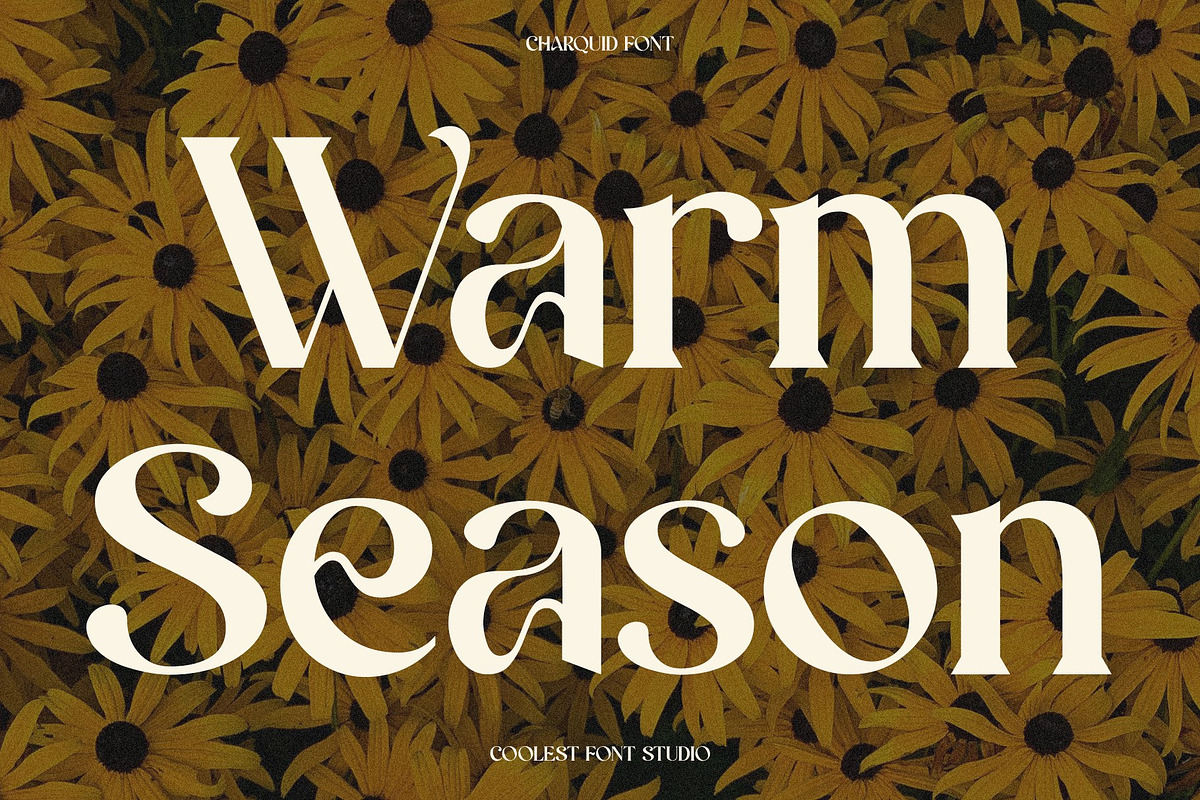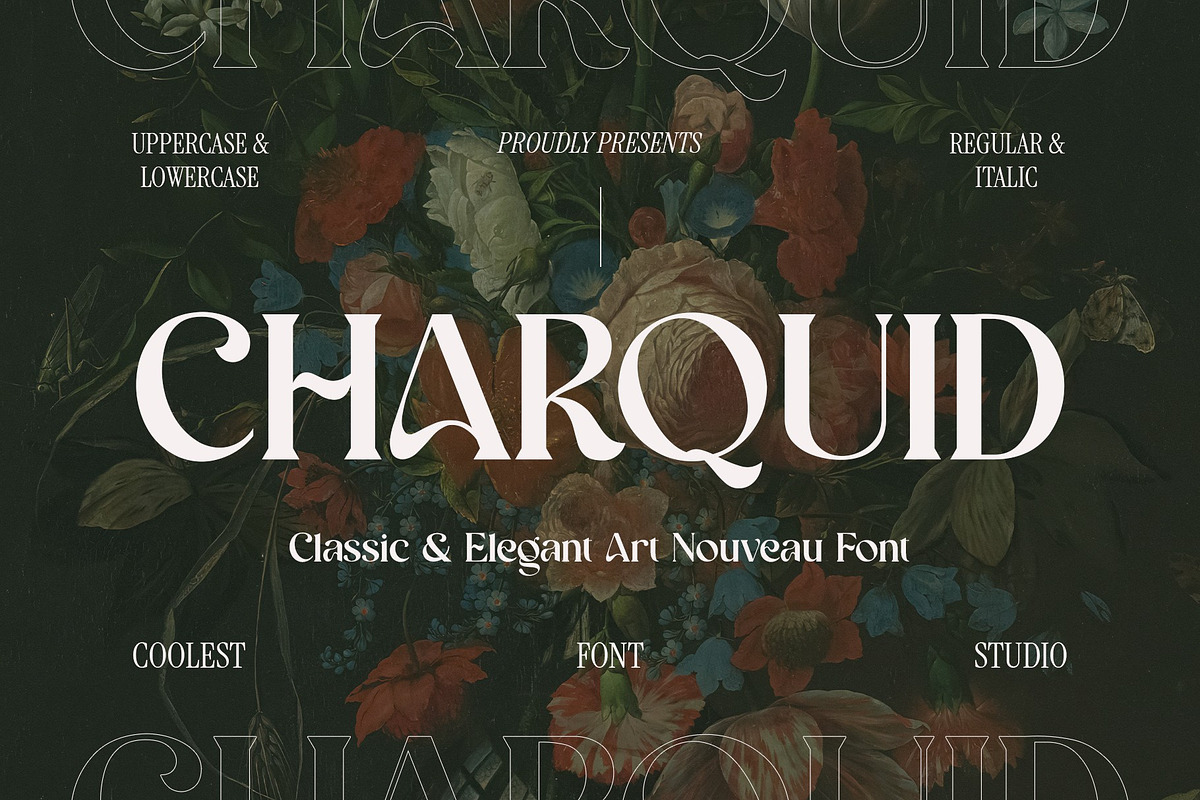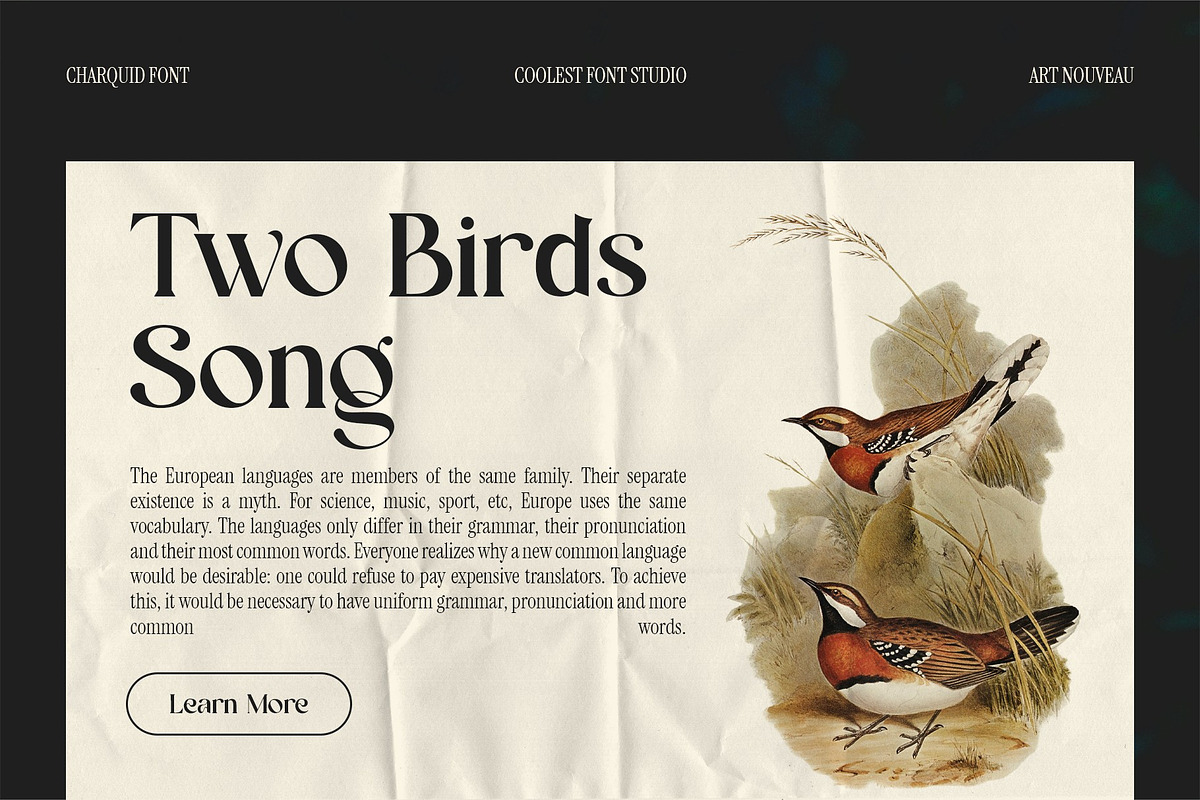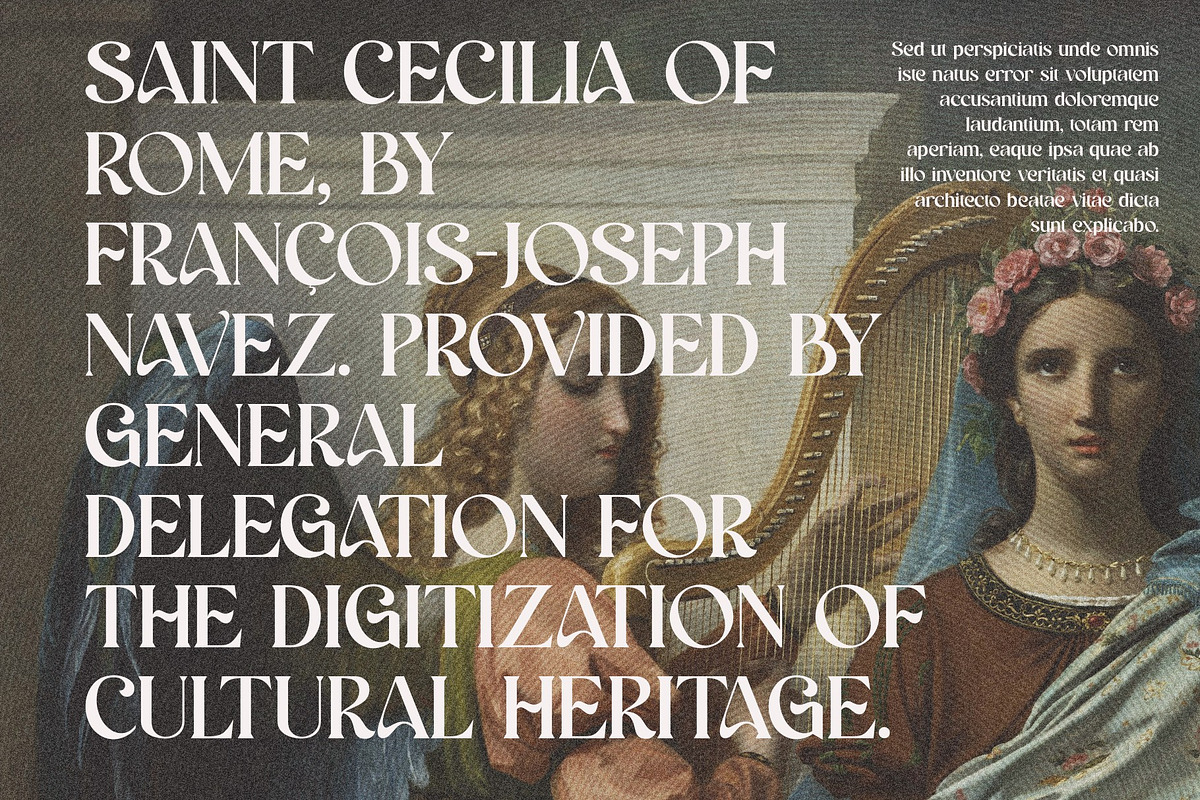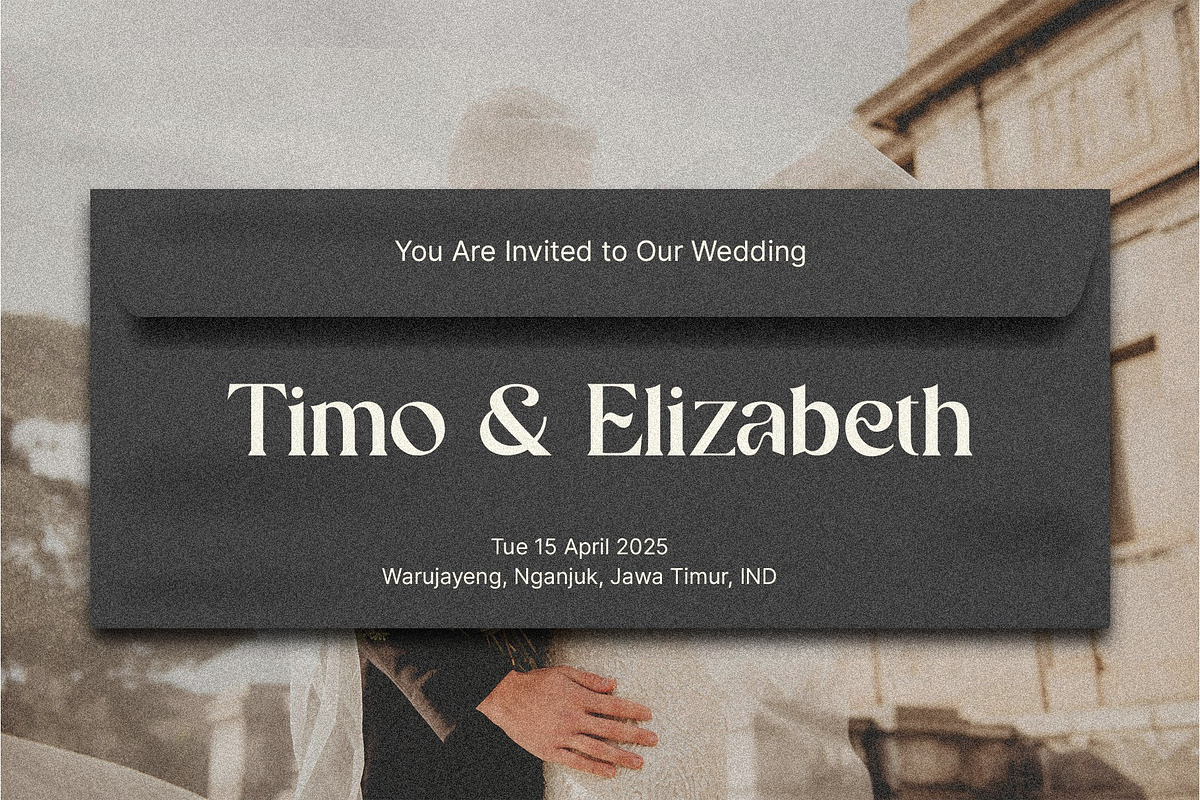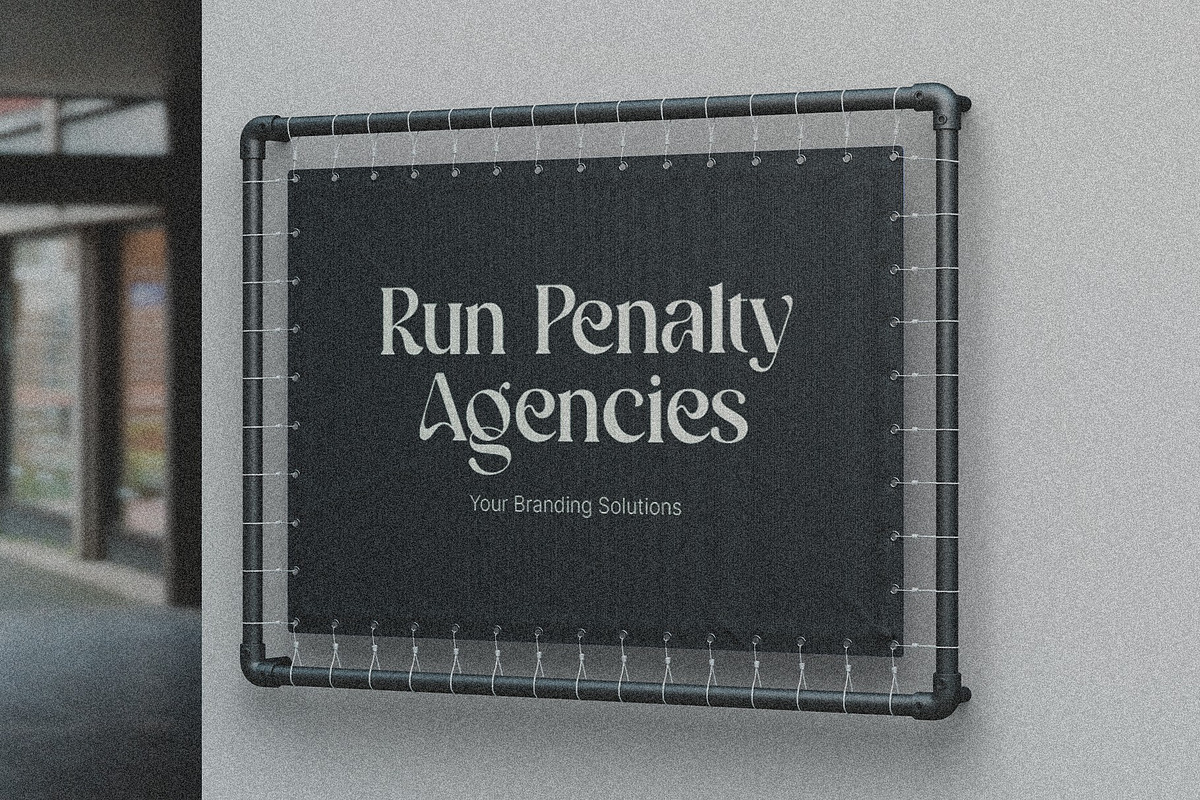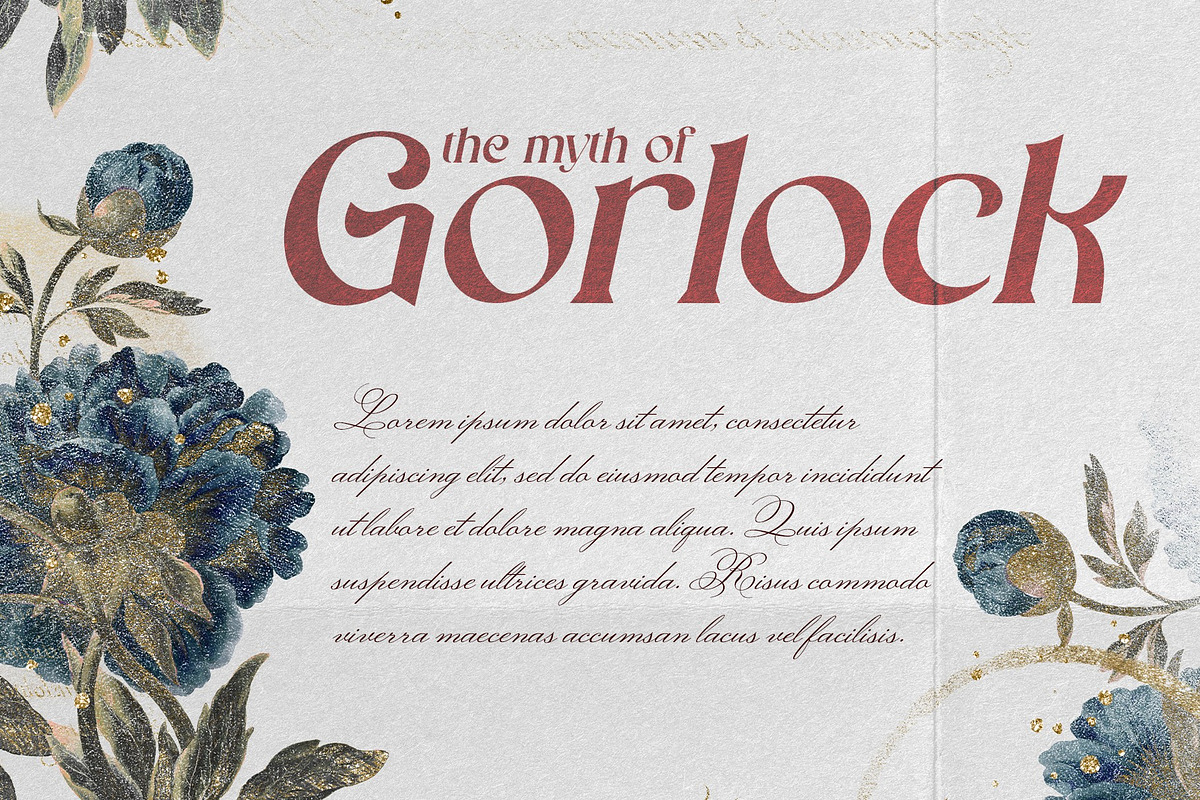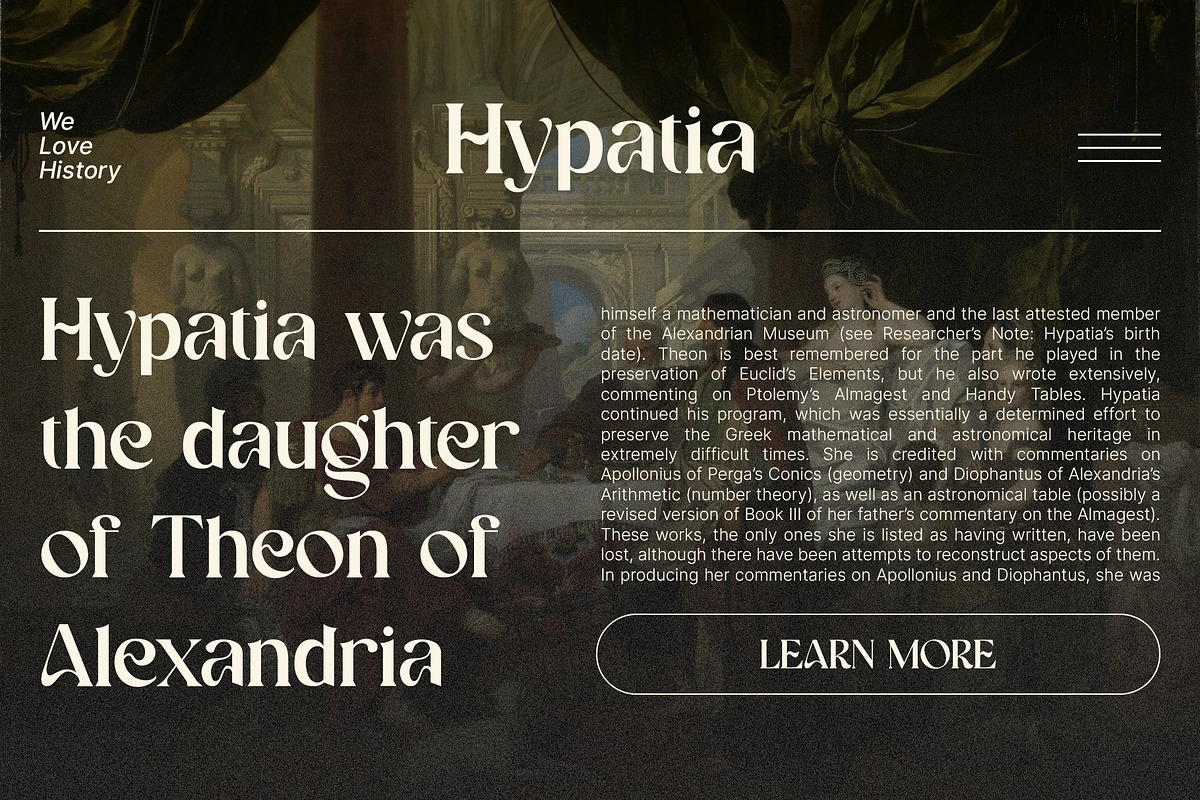
Charquid Font - Serif Font
Charquid Font
Charquid Font — Where Classic Meets Cool! 🌸 Meet Charquid, your new best friend in the world of digital typography! 🌟 This Classic & Elegant Art Nouveau Font is here to add a sophisticated twist to all your creative projects — whether you’re designing a logo, poster, invitation, packaging, or social media graphic.
With both Regular and Italic styles included, Charquid lets you effortlessly blend timeless artistry with a contemporary feeling. It’s a perfect match for those who want their designs to feel stylish, charming, and a little dramatic — without losing that friendly, approachable touch.
Picture it as a lovely vintage poster come to life, with smooth lines, delicate details, and just a hint of playful character. 🌹
✅ Features:
- ➥ Classic & elegant Art Nouveau style
- ➥ Comes in 2 varieties: Regular & Italic
- ➥ Full set of upper and lower case letters
- ➥ Versatile — perfect for branding, packaging, headlines, social media, invitations, and more!
Whether you’re designing for a boutique, a wedding invitation, or simply adding a stylish twist to your creative project, Charquid is your go-to font for a sophisticated, charming, and somewhat mischievous look! 😍